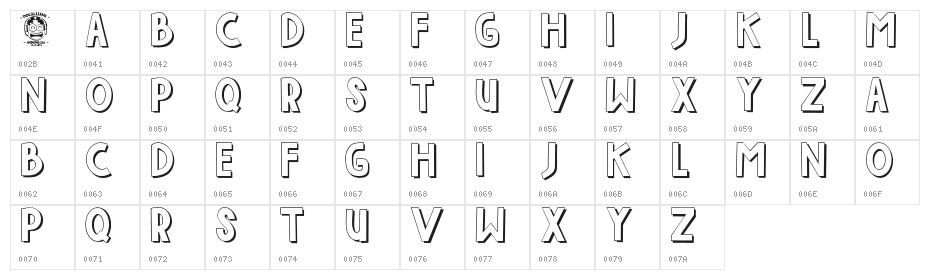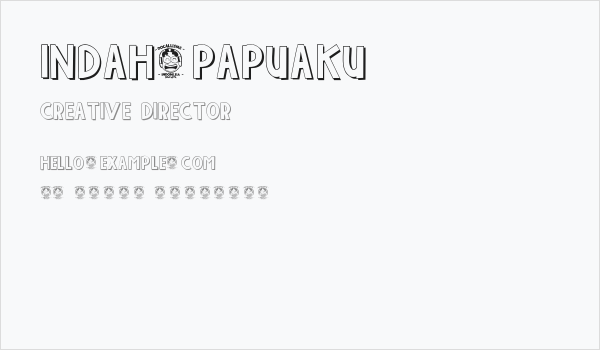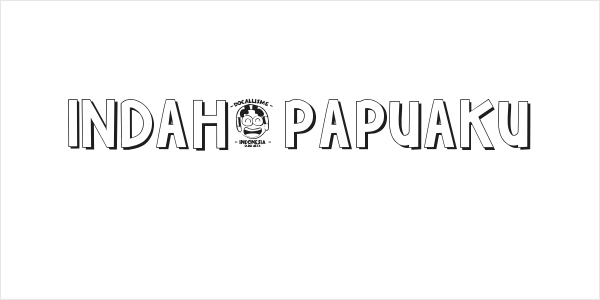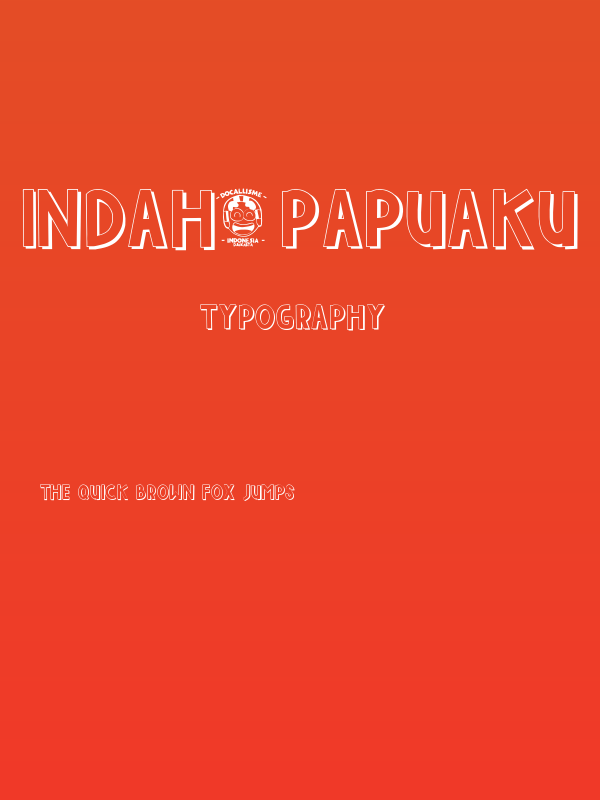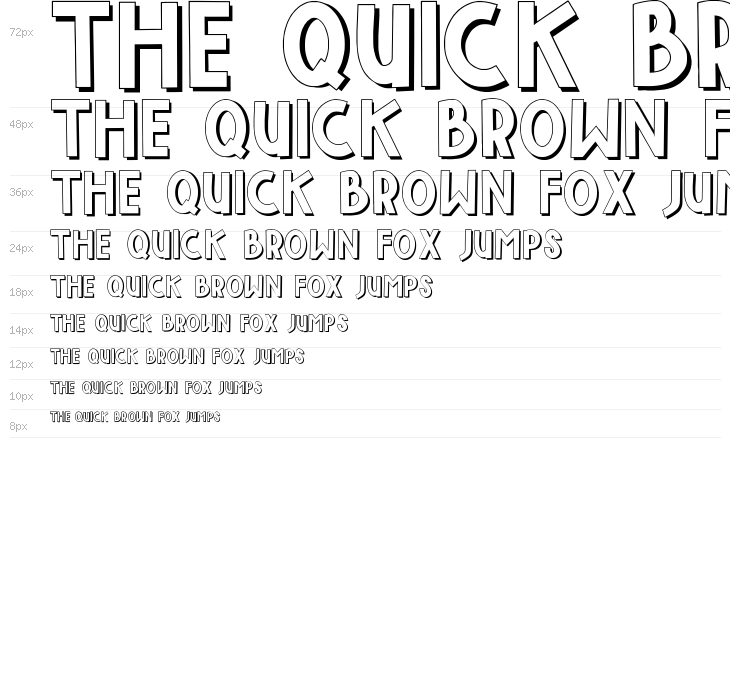
INDAH-PAPUAKU Font
INDAH-PAPUAKU Description
A playful, rounded sans-serif font with uniform stroke width, featuring simple geometric letterforms and friendly curves. The characters are highly legible and have a modern, approachable appearance, making them suitable for informal and creative contexts.
Overall StyleModern, Playful
Use CaseHeadlines, Logos, Posters, Branding
Proposed ProjectsChildren's books, educational materials, branding for playful or tech companies, posters, and social media graphics.